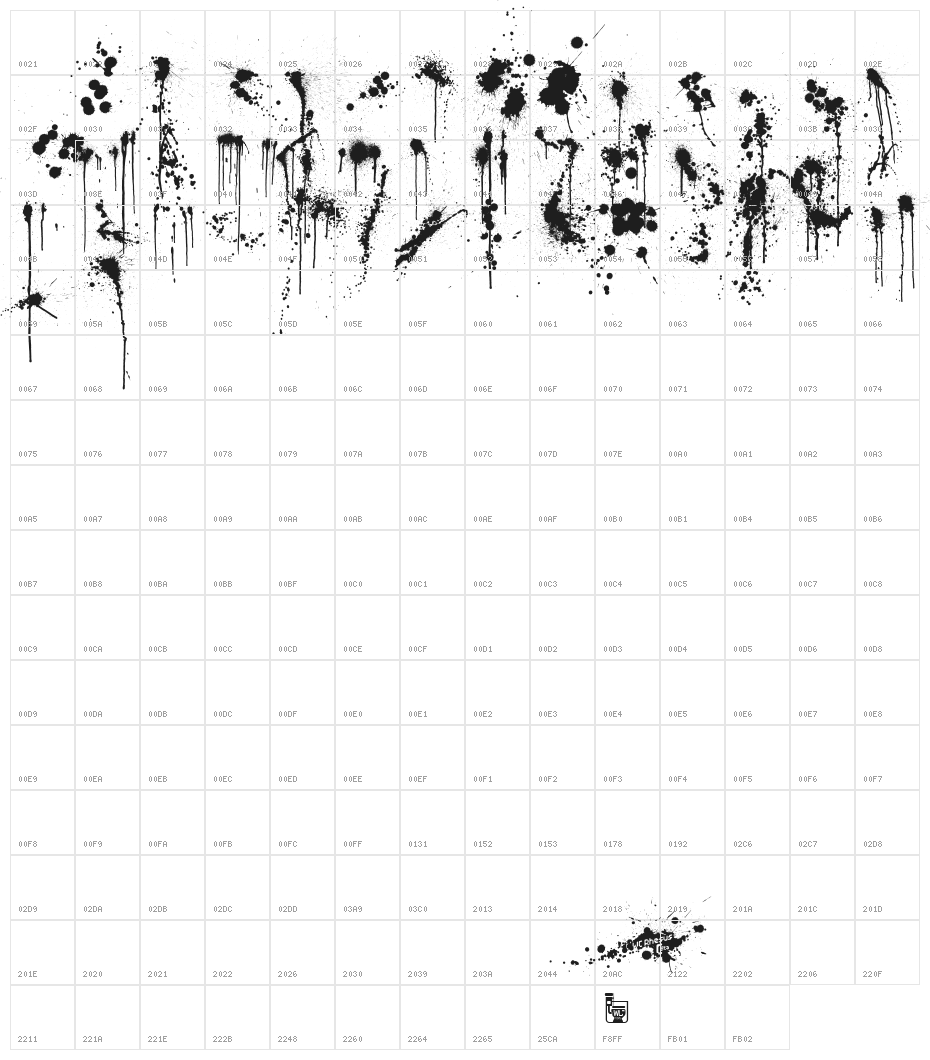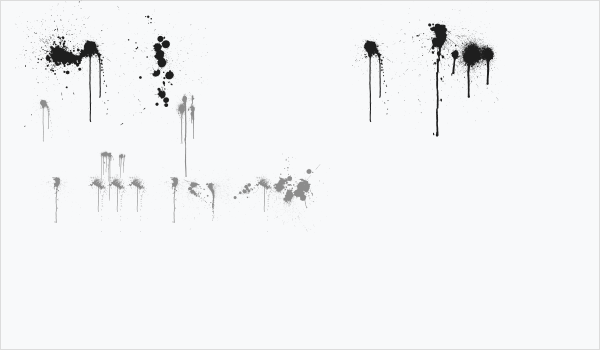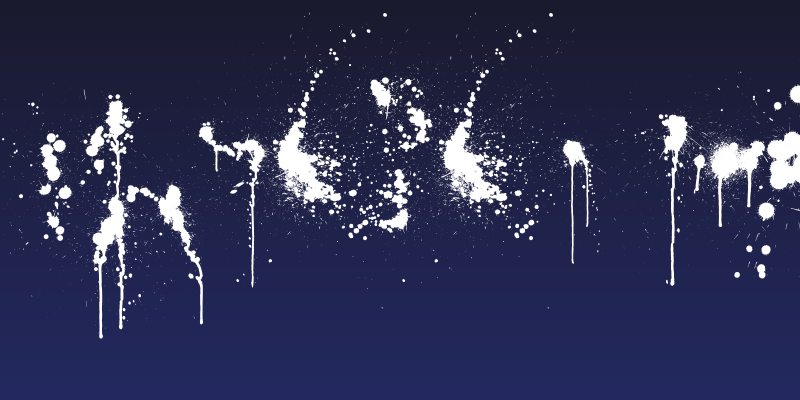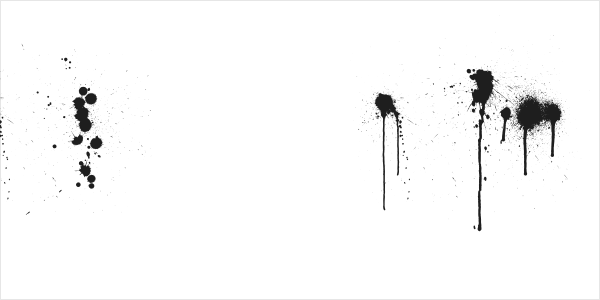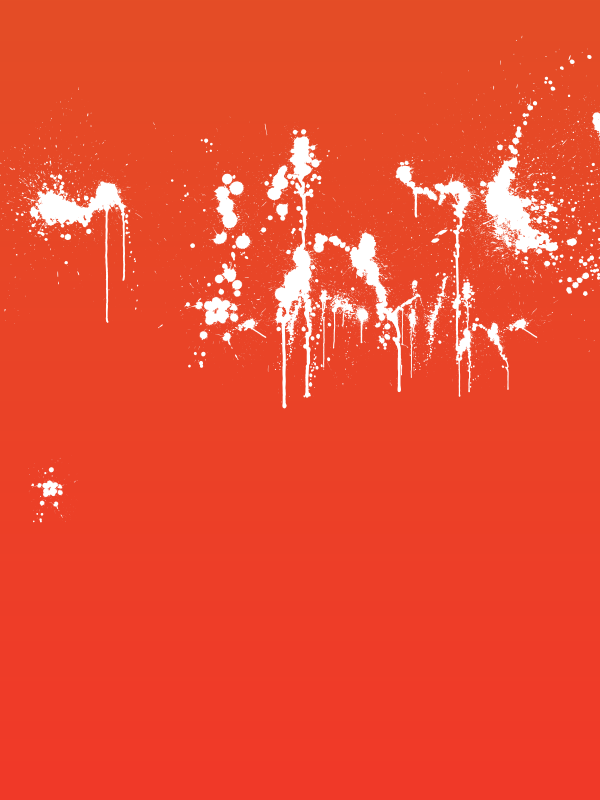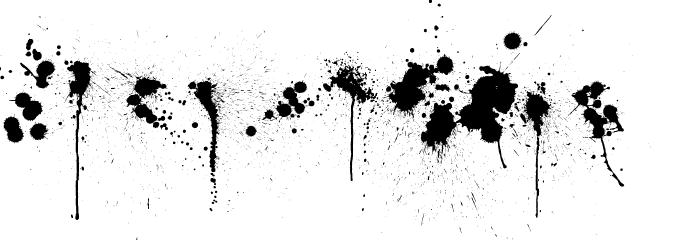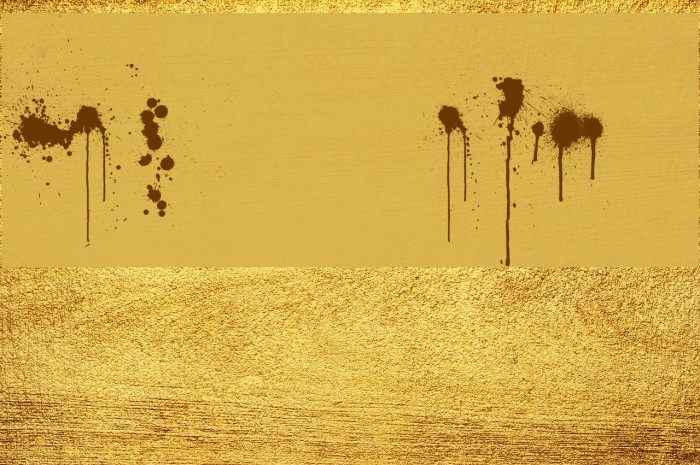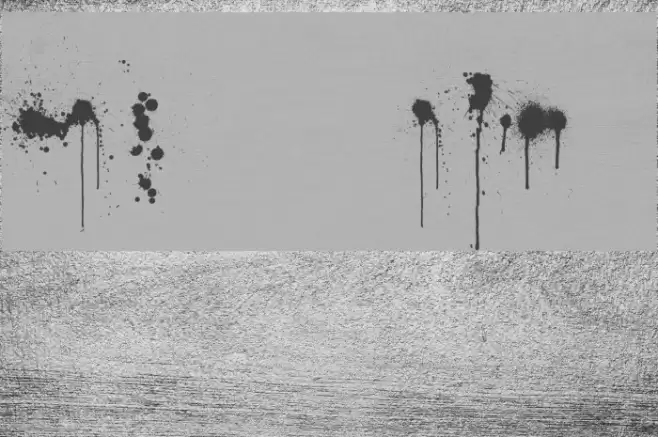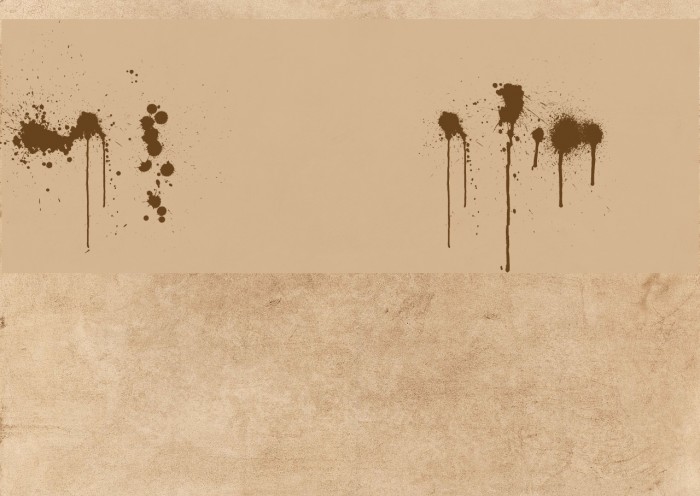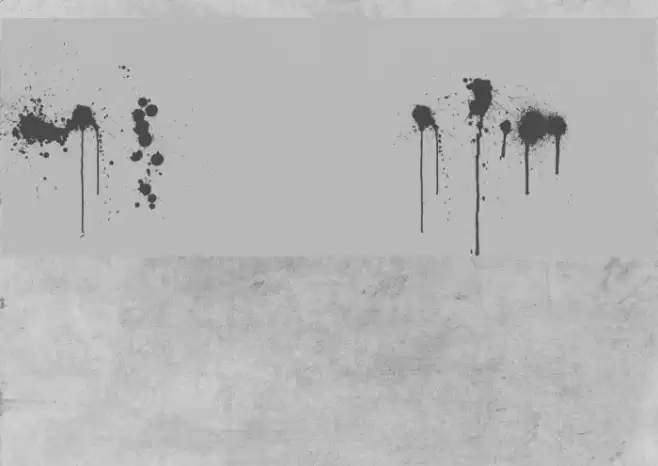
WC Rhesus C 1Bta Font
✎ Dingbats
| Категория | Dingbats |
| Область применения | Logos, Posters, Artistic Designs |
| Рекомендуемые проекты | Ideal for artistic projects, album covers, posters, or any design requiring a bold, expressive statement. |